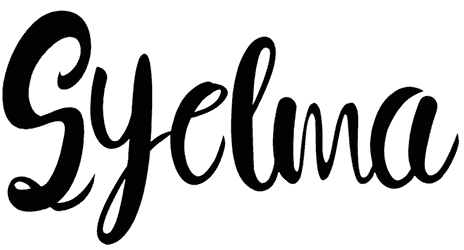
Syelma Font
Say hello to Syelma, a cute handwritten font with a complete set of characters. It conveys a playful and childish feel to your project, but remember, it doesn’t have good readability. This script font also seems adventurous with its weird style. Therefore, it can be used for children’s storybooks, kids’ shows, stationery, product packaging, and animation posters.